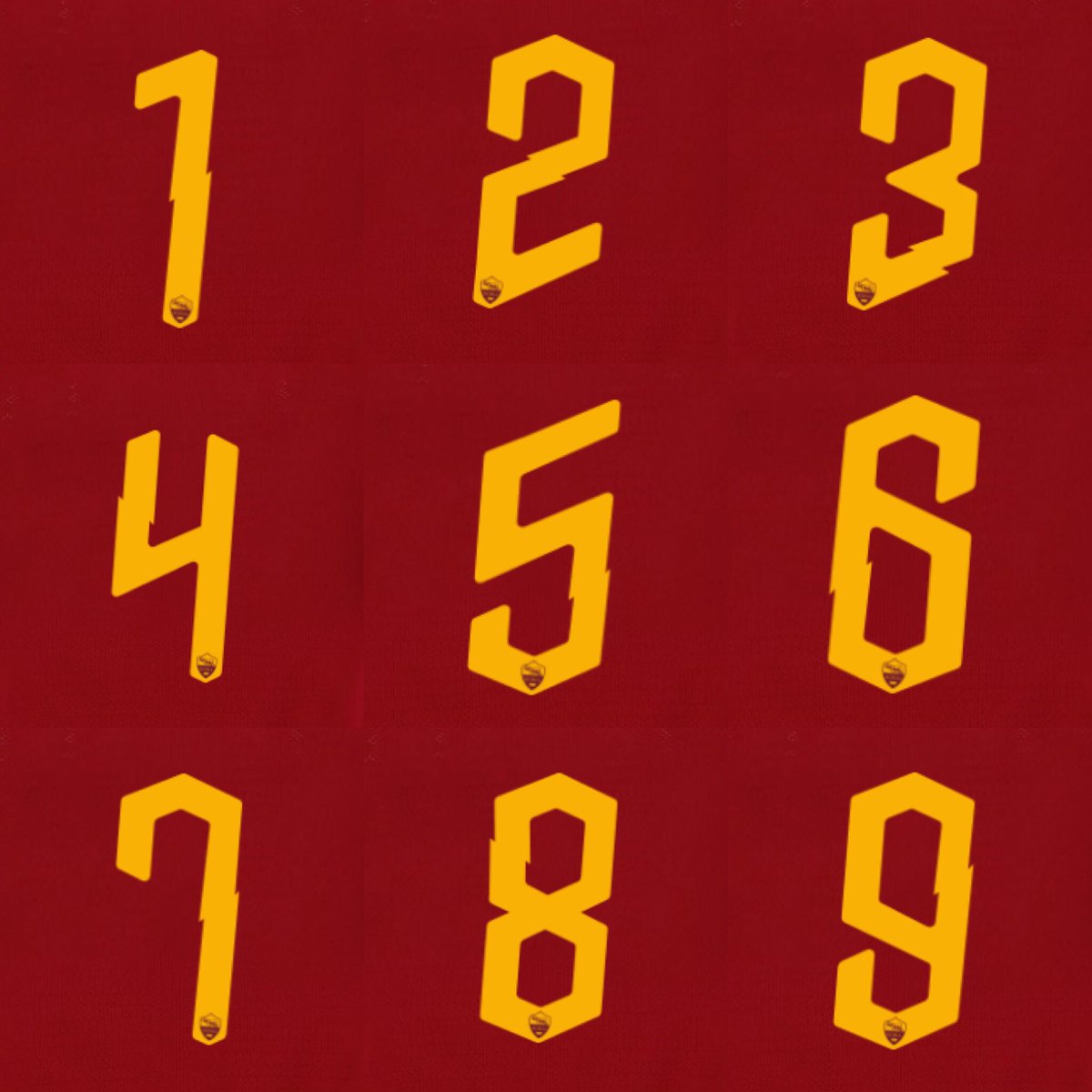
Crazy Nike AS Roma 19-20 Kit Font Revealed
The new Nike AS Roma 2019-20 home kit was revealed on Thursday. With the launch of the new kit, the club also released a brand-new typeface for the 2019-20 season that draws inspiration from the shirt design.
Nike AS Roma 19-20 Kit Font
A unique design inspired by the lightning print of the kit that is inspired by Roman iconography, the new Nike AS Roma 19-20 kit font boasts an extraordinary, very powerful look.
“Roman mythology and its influence on Roman identity played a huge part in the concept. This year, Jupiter was our focus, and the lightning bolt was an obvious and powerful symbol to use,” explains Pete Hoppins, Nike Football Apparel Senior Design Director.